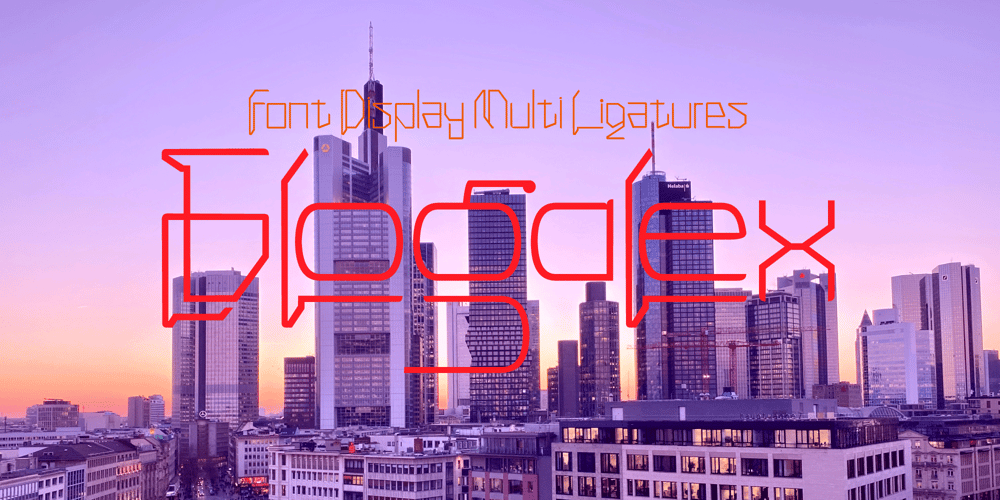
Glogalex
Glogalex font
Glogalex Font Family was designed by Zulfikar Mnur and published by ZultypeFonter. Glogalex contains 1 styles and family package options. We designed this Glogalex font inspired by today’s rapid digital technology, where the art of typography is very much needed to support various digital needs, both for software and for other print media needs.Glogalex is a display font designed with the main focus aimed at the needs of various brands of digital products or other technology products, but not limited to the use of various kinds of printing, both mass media or for the needs of various titles of books, magazines, newspapers, and various other kinds of tabloids, the wealth of Glyph Alternate and Ligature can add to the creation of typography art, you can be creative in using various letters that we have designed by combining ordinary letters with alternative letters and also ligatures, we have combined several ligatures to make it easier for you to use, but if If you have difficulty using Alternate letters and ligatures, we recommend you to manually combine each Alternate and ligature you want to use.We highly recommend the use of this Glogalex font for the needs of displaying company brands, trademarks, logo designs, use in digital media, such as movie titles, online game names, and for various vehicle brands, if you can maximize its use it will be very interesting. for each display that has been designed, pleasing to the eye and easy to read.we are very happy if you are satisfied in using our products, and if there are problems in using our products you can tell us via email zulfikarzul80@yahoo.co.id, we will respond as soon as possible, thank you.